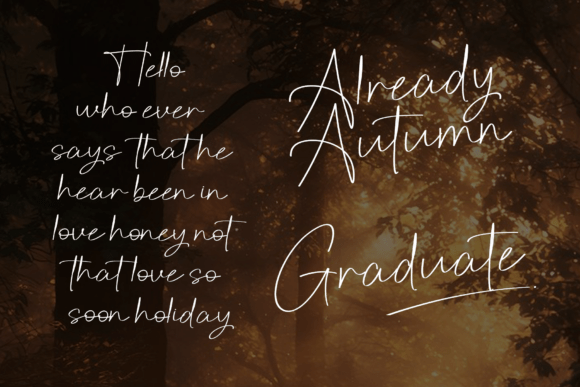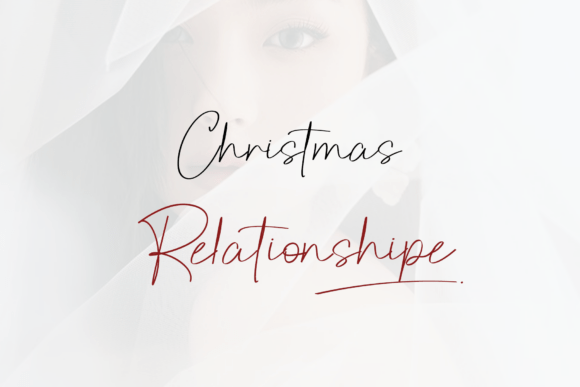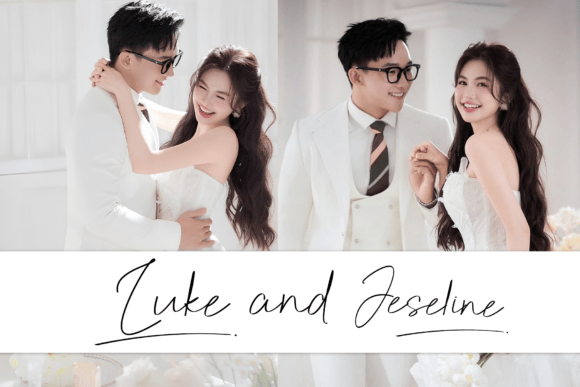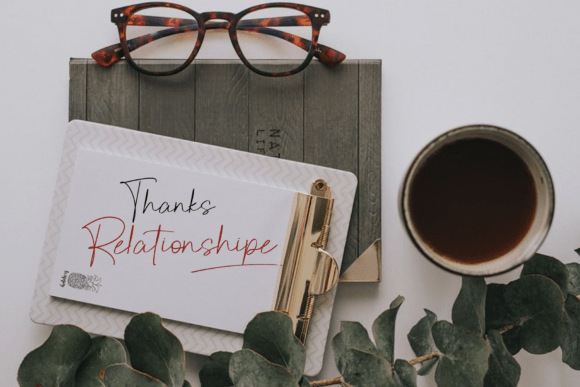
Introducing Alright Jellyshake Font: Elevate Your Designs with a Timeless Handwritten Style
Are you on the hunt for a font that adds a personal touch to your designs? Look no further than Alright Jellyshake, a lovely and timeless handwritten font that is sure to capture the hearts of designers and crafters alike. With its unique and beautiful touch, this font is the perfect choice for creating eye-catching logos, branding, and quotes that stand out from the crowd.
Handwritten fonts have a special place in the world of design. They evoke a sense of warmth, personality, and authenticity that is hard to replicate with more formal fonts. Alright Jellyshake is no exception, boasting a charming and whimsical feel that is sure to add a touch of magic to any design. Whether you’re working on a logo, branding materials, or social media graphics, this font is sure to bring your creative vision to life.
What Makes Alright Jellyshake Stand Out
So, what sets Alright Jellyshake apart from other handwritten fonts on the market? For starters, every letter has a unique and beautiful touch that gives the font a sense of character and personality. The strokes are fluid and natural, with a subtle variation in line width that adds to the font’s handmade feel. This attention to detail makes Alright Jellyshake a joy to use, and ensures that your designs will stand out from the crowd.
Alright Jellyshake is a versatile font that is perfect for a wide range of design applications. Whether you’re a professional designer or a crafter looking to add a personal touch to your projects, this font is sure to become a favorite. Here are just a few ways you can use Alright Jellyshake to elevate your designs:
- Logos and Branding: Create a lasting impression with a custom logo that showcases your brand’s personality. Alright Jellyshake is perfect for crafting unique and memorable logos that reflect your brand’s values and style.
- Quotes and Posters: Add a touch of inspiration to your quotes and posters with Alright Jellyshake’s beautiful handwritten style. This font is perfect for creating eye-catching social media graphics, motivational posters, and more.
- Stationery and Invitations: Add a personal touch to your stationery and invitations with Alright Jellyshake. This font is perfect for creating custom wedding invitations, thank-you cards, and more.
Tips for Using Alright Jellyshake
To get the most out of Alright Jellyshake, here are a few tips to keep in mind:
- Experiment with Font Sizes: Alright Jellyshake looks great in a variety of font sizes, from large headings to smaller body text. Experiment with different sizes to find the perfect fit for your design.
- Pair with Other Fonts: Alright Jellyshake pairs beautifully with other fonts, especially sans-serif fonts like Arial or Helvetica. Try pairing it with a bold font for a striking contrast.
- Use it for Headlines and Titles: Alright Jellyshake is perfect for headlines and titles, where its unique and beautiful touch can really shine.
In conclusion, Alright Jellyshake is a timeless handwritten font that is sure to elevate your designs to the next level. With its unique and beautiful touch, this font is perfect for creating eye-catching logos, branding, and quotes that stand out from the crowd. Whether you’re a designer or crafter, Alright Jellyshake is a must-have font that is sure to become a favorite. So why wait? Give Alright Jellyshake a try today and see the difference it can make in your designs!